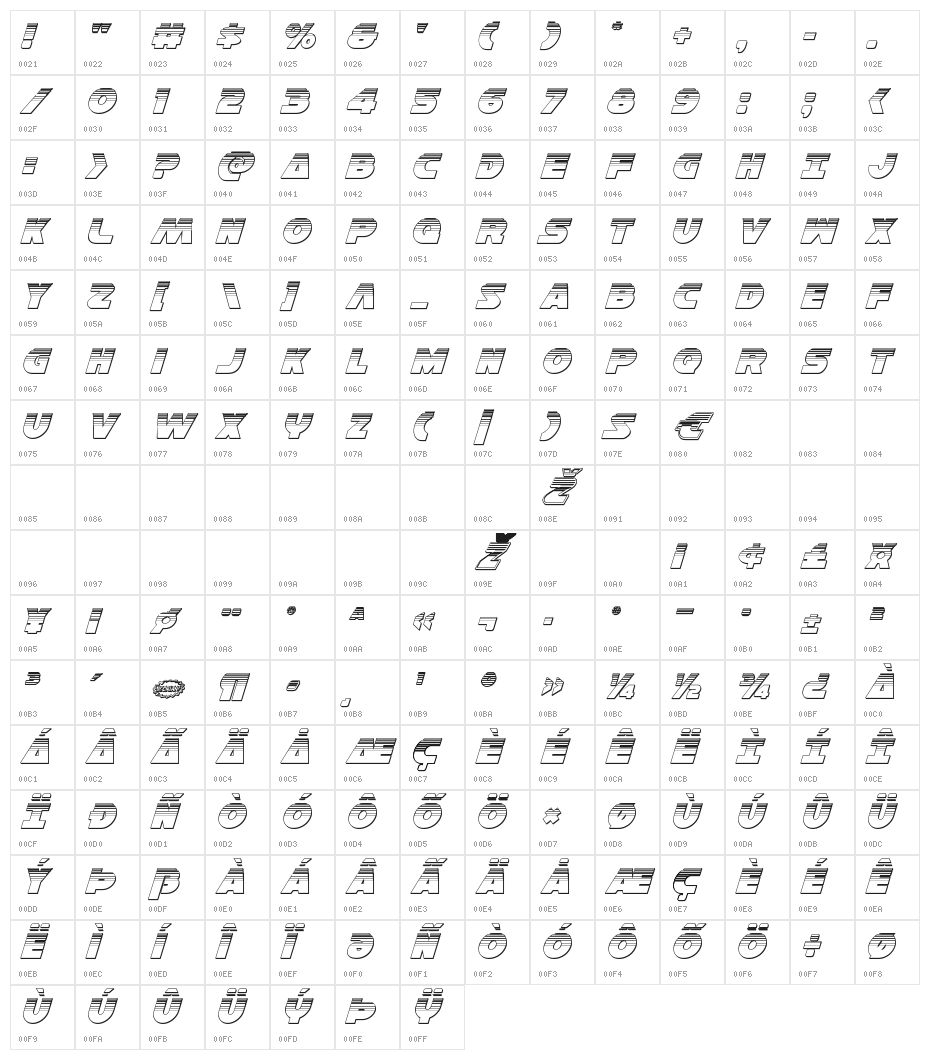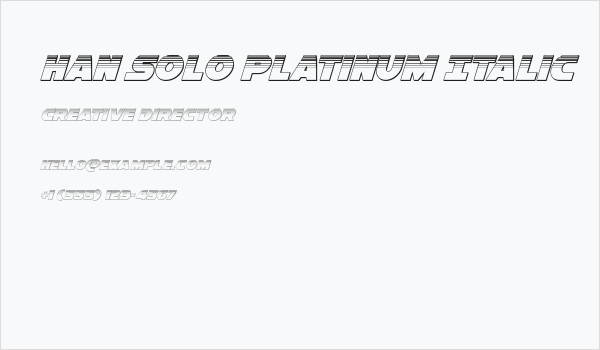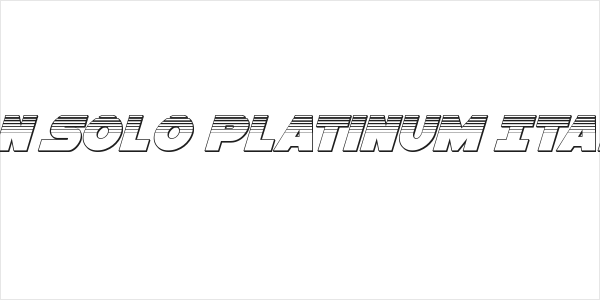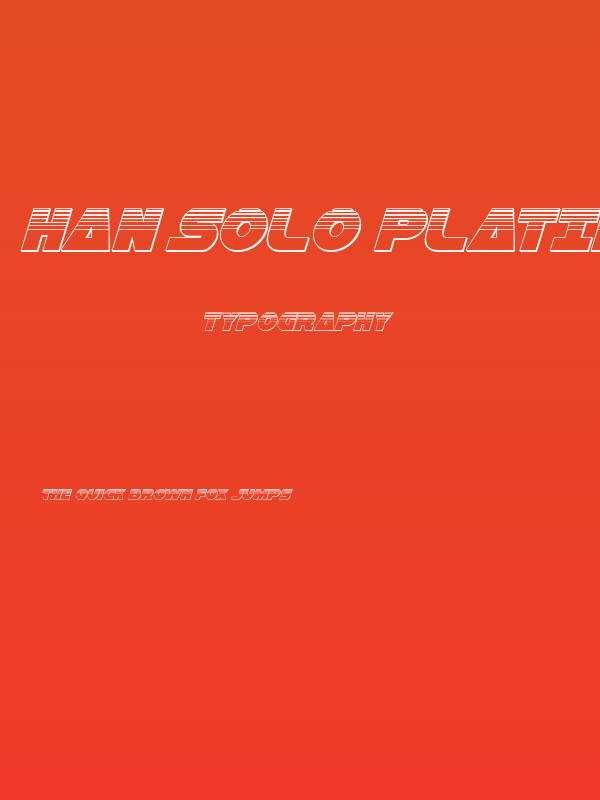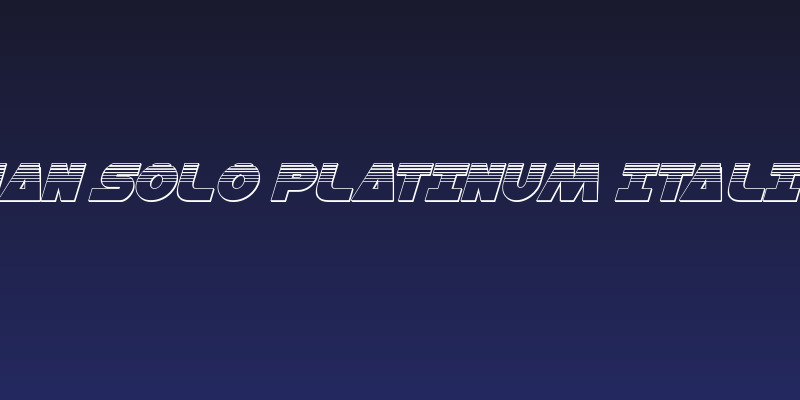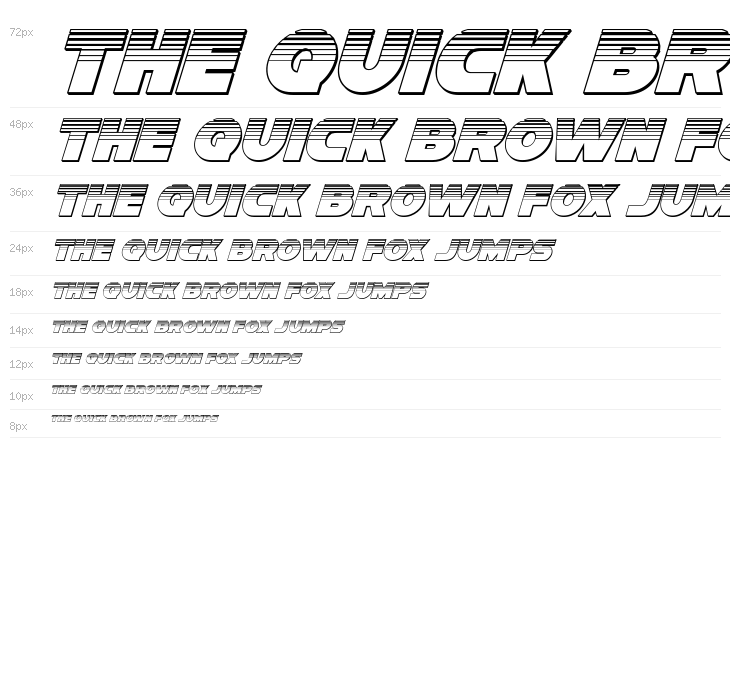
Han Solo Platinum Italic Font
Han Solo Platinum Italic Description
This font features a bold, futuristic design with a distinct italic slant, giving it a dynamic and forward-moving appearance. The characters are outlined with a double line, creating a layered effect that adds depth and dimension. The uppercase and lowercase letters maintain a consistent style, with sharp angles and geometric shapes that convey a sense of speed and modernity. The numerals and special characters follow the same aesthetic, ensuring a cohesive look across all elements. This font is ideal for projects that require a strong, impactful visual presence.